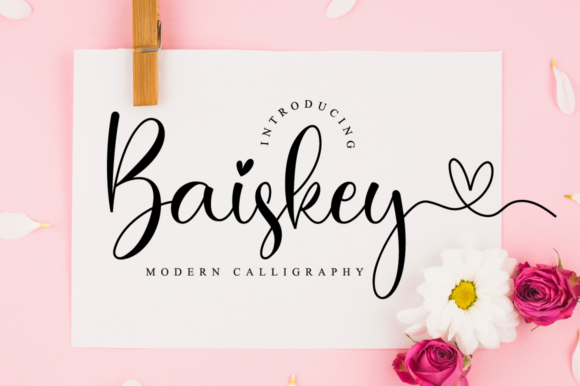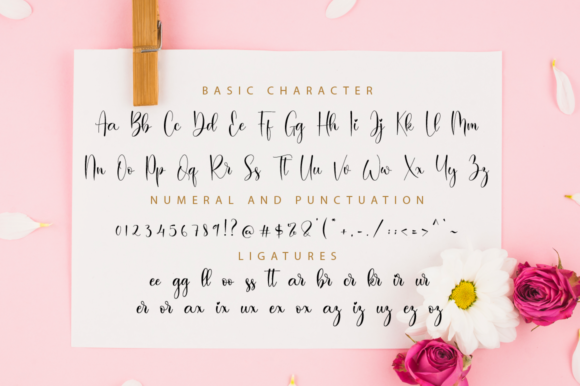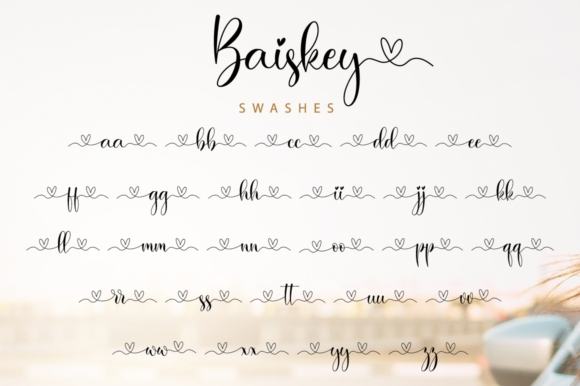
About Baiskey Font
The Baiskey font is a beautiful script font designed with an incredibly modern feel. This font is PUA encoded which means you can access all of the glyphs and swashes with ease! It features a varying baseline, smooth lines, gorgeous glyphs and stunning alternates.